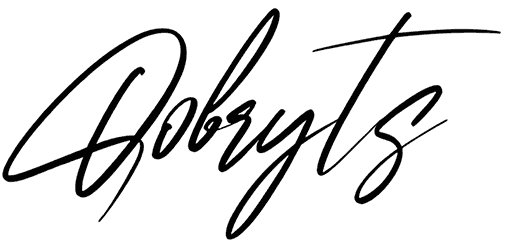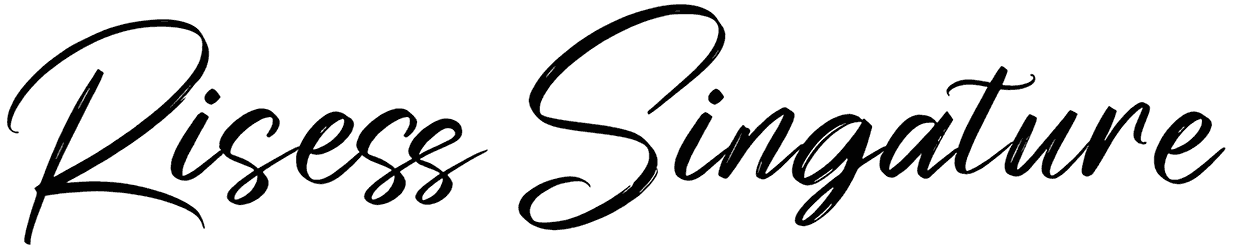
Signature December Font
Regarding its playful, friendly, and especially modern sense of brush font, it is still dominant among all of us and applied in many sweet and also casual displays.
This Signature December font is inspired by a creative playing of a light inky brush style that can give an artistic touch to any posters, quotes, branding, flyers, etc. The curvature and approachable joint of letters, which makes this fast handwriting font lovely, might be difficult to read in many situations.
the latest style letters are perfect for wall displays, wedding invitations, social media post logos,
advertisements, product packaging, product designs, labels, photography, watermarks, invitations, stationery,
and any project that requires taste handwriting.
Designed by: Scratchones